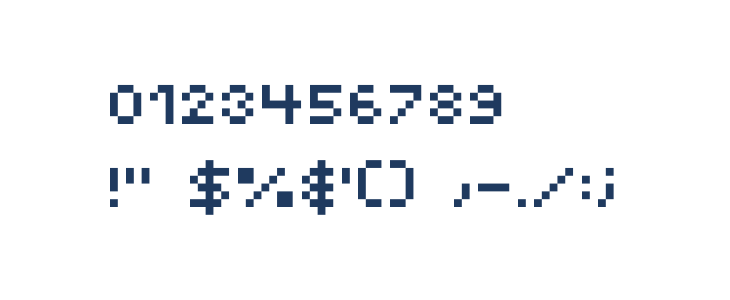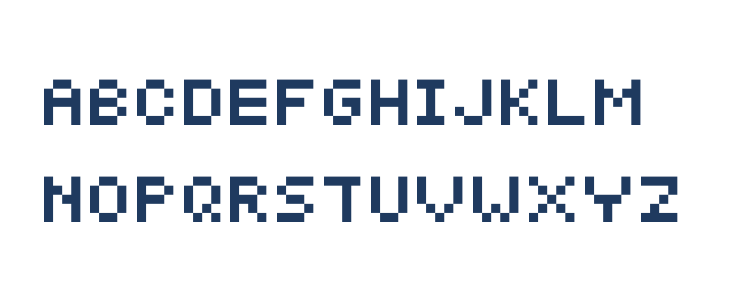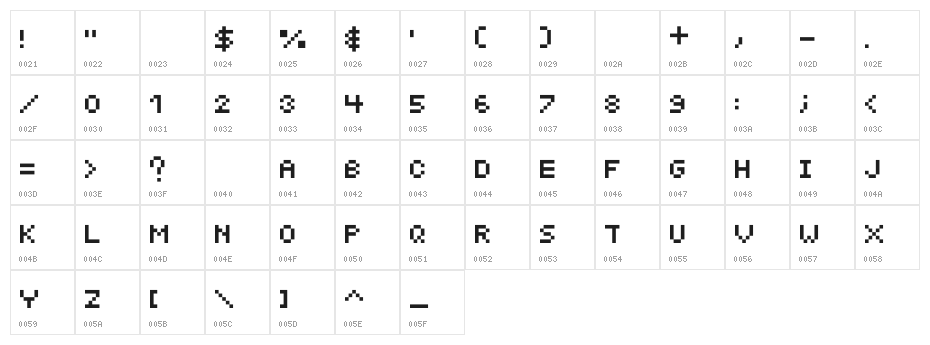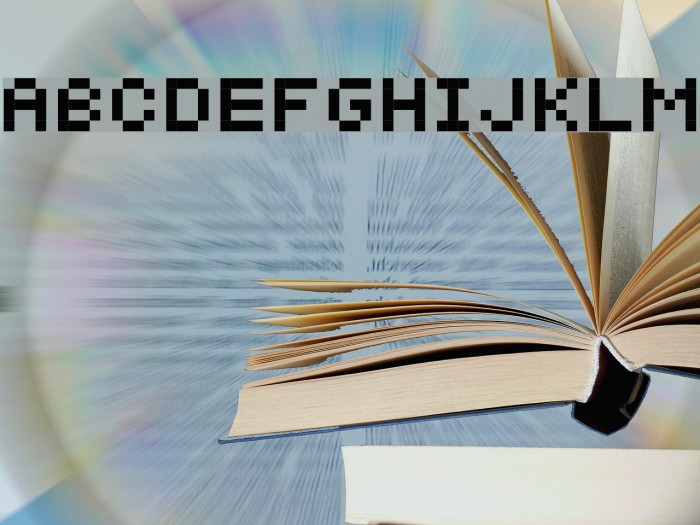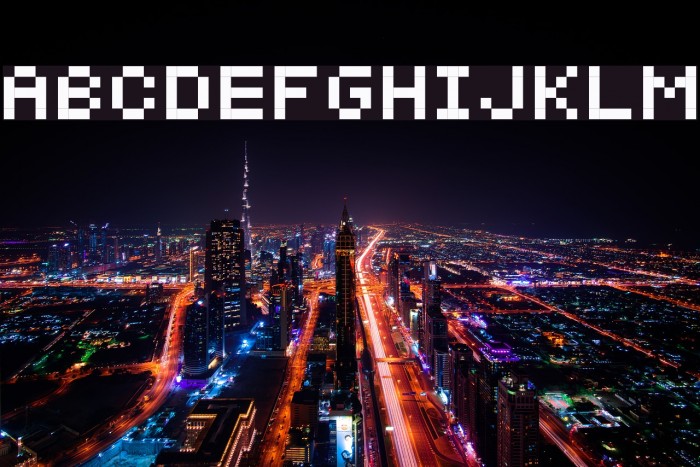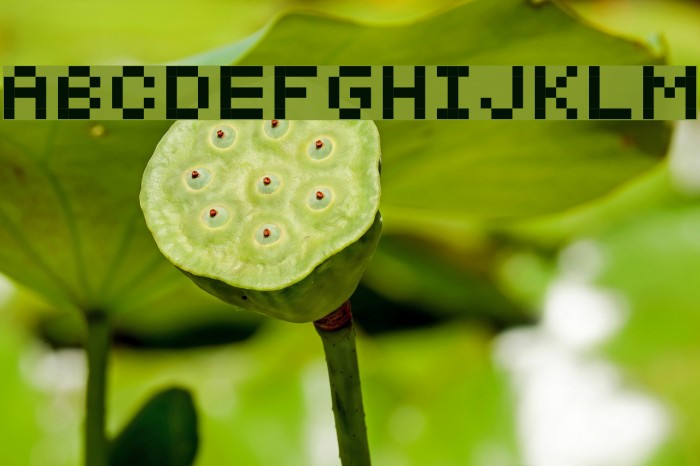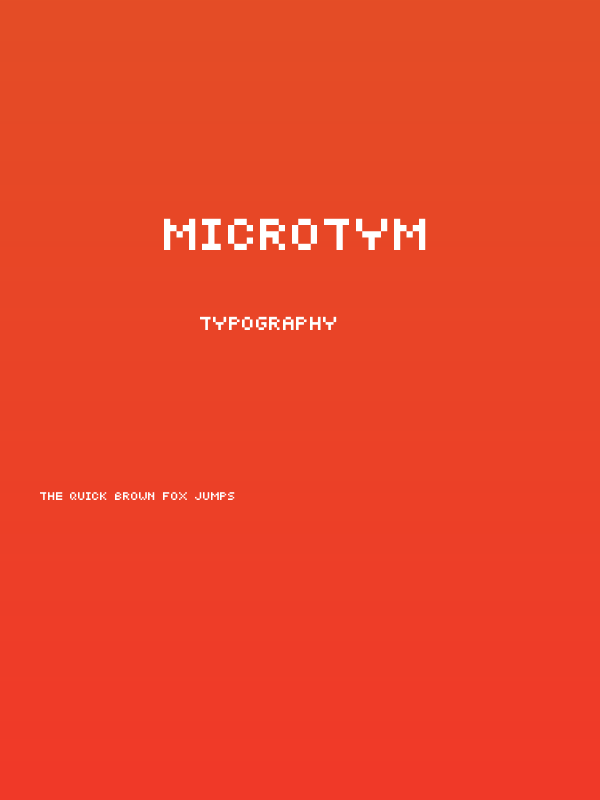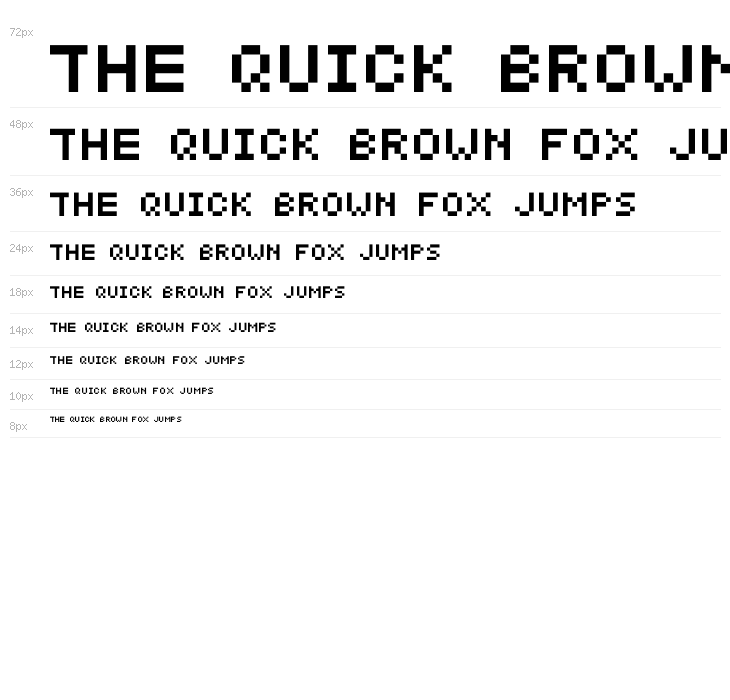
MicroTym Font
MicroTym Description
This font features a pixelated, blocky design reminiscent of early digital displays and retro video games. Each character is constructed with a uniform grid of square pixels, giving it a distinctly digital and geometric appearance. The uppercase and lowercase letters maintain a consistent height, contributing to a monospaced feel, although the font itself is not strictly monospaced. The numerals and special characters follow the same pixelated style, ensuring visual cohesion across all glyphs. This font's aesthetic is ideal for projects that aim to evoke nostalgia for the early days of computing or to create a futuristic, tech-inspired look.
Overall StyleRetro, Digital
Use CaseLogos, Posters, Digital Art
Proposed ProjectsIdeal for retro video game designs, tech-themed posters, digital art projects, and any creative work that requires a nostalgic or futuristic digital aesthetic.